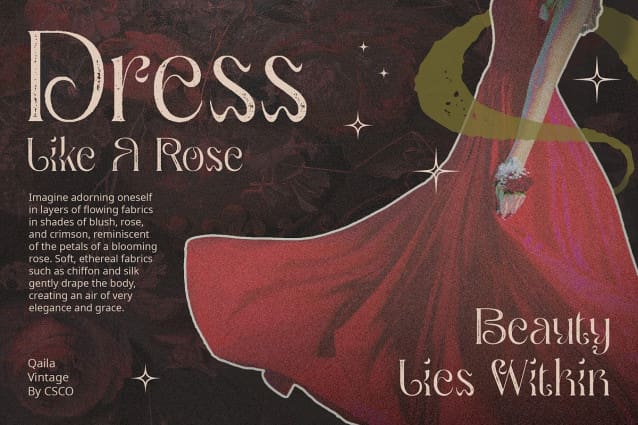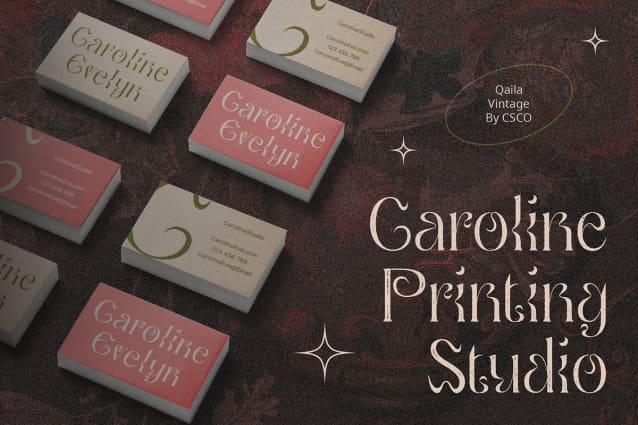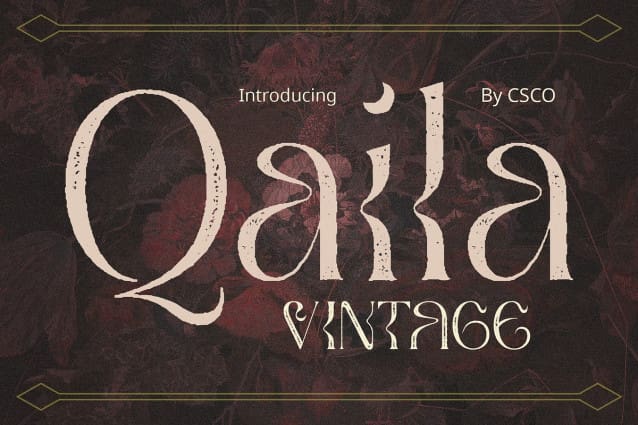
Qaila Vintage Font
Qaila Vintage Font: Adding Funky Vintage Vibes. High Stroke Serif Design Qaila Vintage features a high stroke serif design, giving it a distinctive and bold appearance that demands attention. Each letter exudes a sense of strength and presence.
Funky Style The font embodies a funky style, characterized by playful and unconventional letterforms that exude personality and charm. It adds a sense of fun and whimsy to any design project.
Rough Stamp Drawn Effect With its rough stamp drawn effect, This font boasts a vintage-inspired aesthetic reminiscent of old-fashioned signage and print materials. This effect adds texture and character to the font, enhancing its retro appeal.
Vintage Charm with a Modern Twist Despite its vintage-inspired design, This font offers a modern twist that makes it suitable for contemporary design projects. It seamlessly blends nostalgic charm with contemporary flair, making it versatile and adaptable for various design applications.
Retro Coolness with a Funky Edge This font combines high stroke serif design, funky style, and a rough stamp drawn effect to deliver retro coolness with a funky edge. Whether used for branding, packaging, or editorial design, this font adds a unique vintage charm that stands out from the crowd.